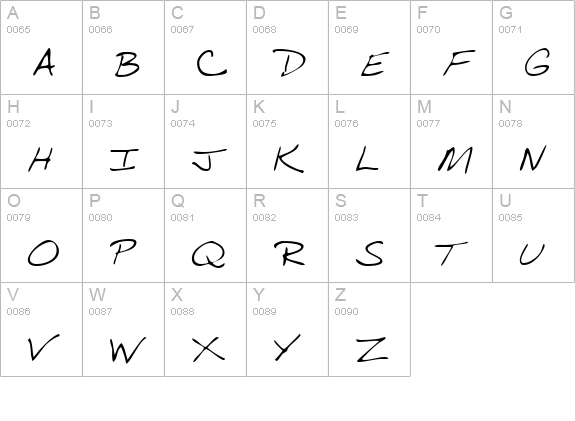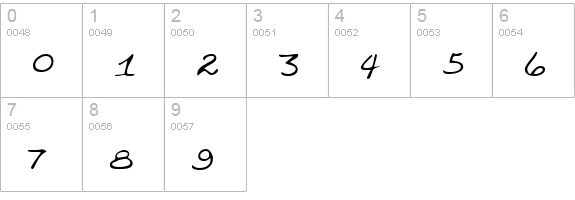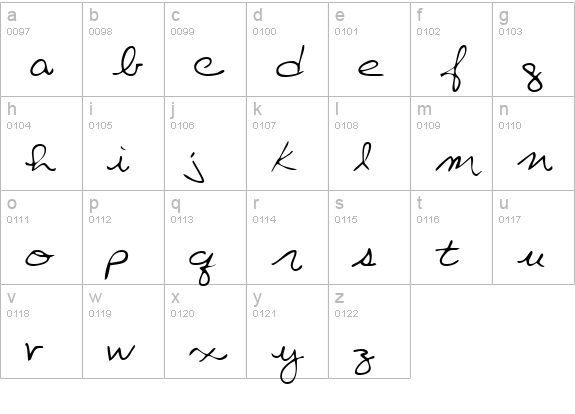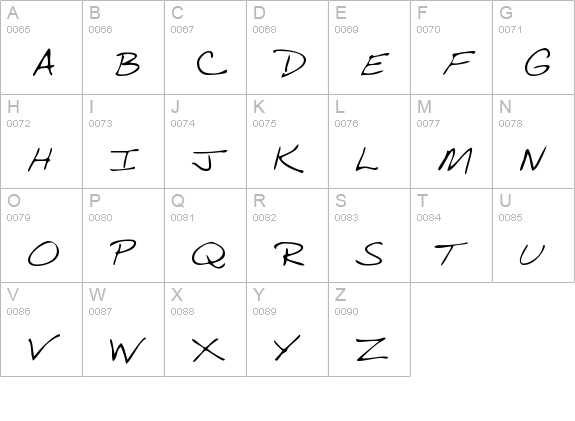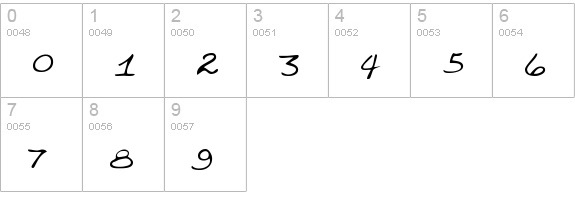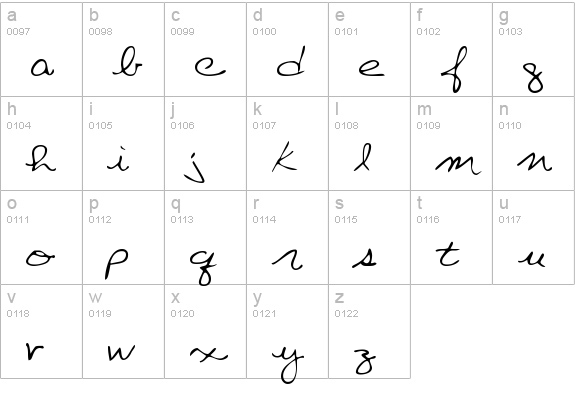
KaspersHand Regular Font Details
KaspersHand Regular is the standard, neutral variant in the KaspersHand typeface family \xE2\x80\x94 well suited to general body text, paragraphs, and standard typographic work.
KaspersHand Regular font is a charming and whimsical typeface that exudes a sense of playfulness and creativity. With its hand-drawn appearance and unique character design, this font adds a personal touch to any project. Whether you're creating invitations, designing logos, or crafting eye-catching headlines, KaspersHand Regular is the perfect choice to make your text stand out. What's even better is that KaspersHand Regular font is available for free! That's right, you can freely download this delightful font at FontsMarket.com. It's an incredible offer for designers, hobbyists, and anyone looking to add a touch of personality to their work without breaking the bank. With KaspersHand Regular font, you'll have access to a wide range of letters, numbers, and punctuation marks, allowing you to create visually stunning and attention-grabbing designs. The irregular strokes and imperfect lines give this font a handcrafted feel, evoking a sense of warmth and authenticity. Whether you're designing greeting cards, crafting posters, or creating social media graphics, KaspersHand Regular font is the perfect choice to elevate your design and captivate your audience. Its versatility and unique style make it suitable for a wide range of projects, from whimsical illustrations to elegant branding. So why wait? Take advantage of this amazing opportunity and download KaspersHand Regular font for free at FontsMarket.com. Unleash your creativity and let this charming font add a touch of magic to your designs.